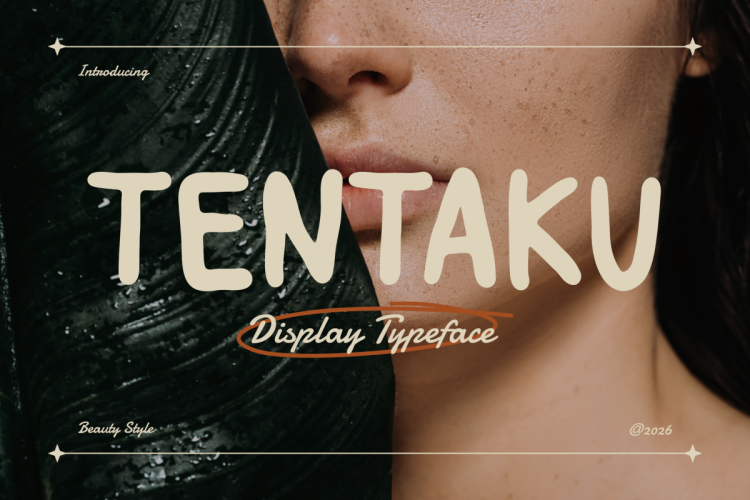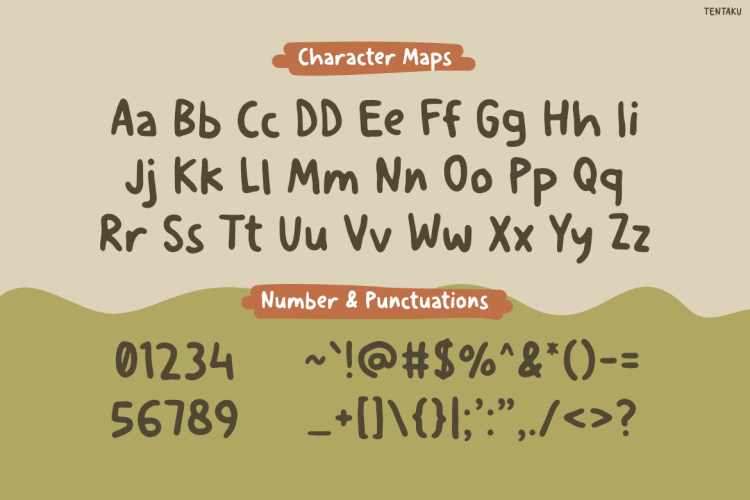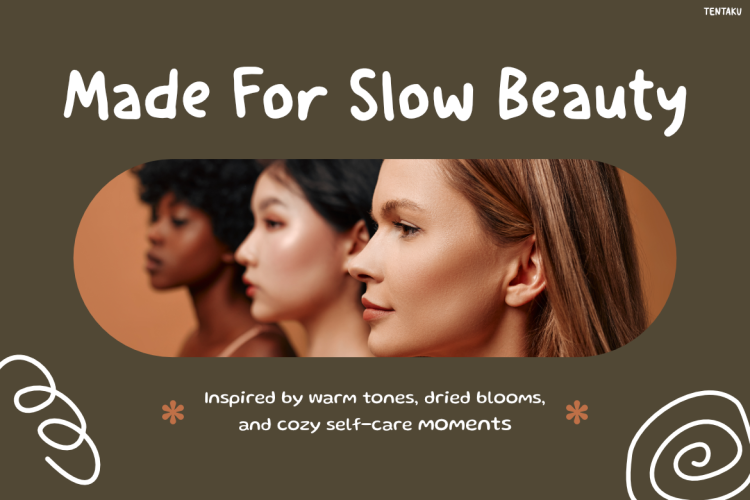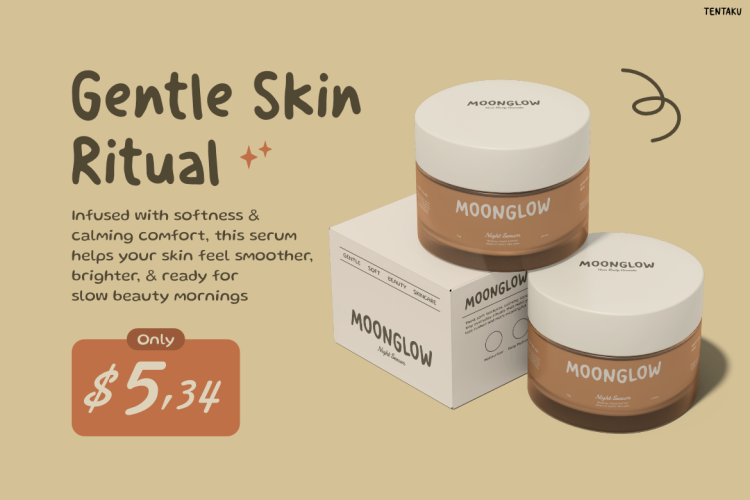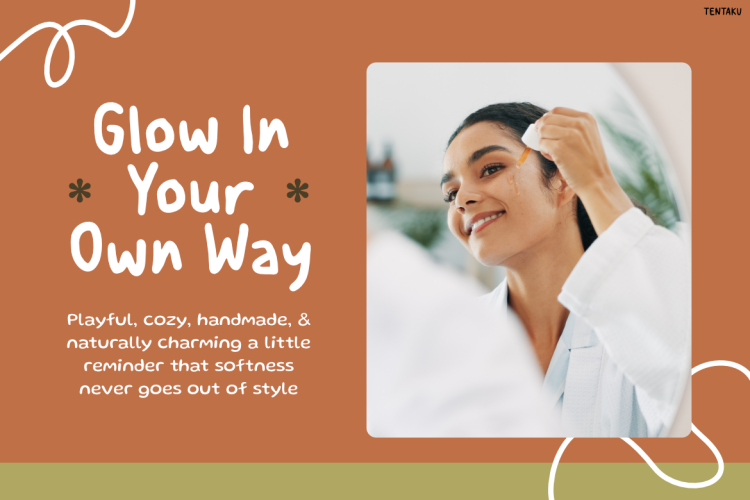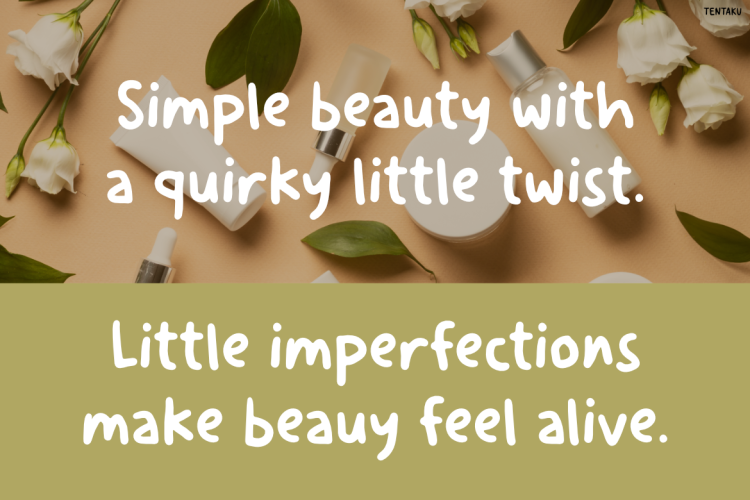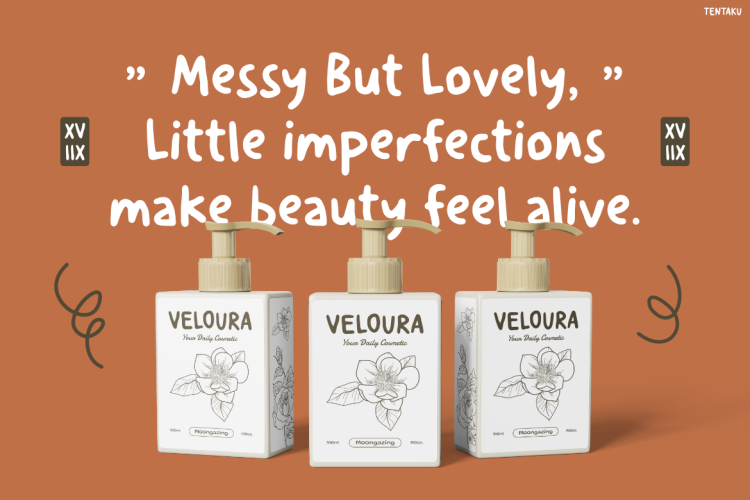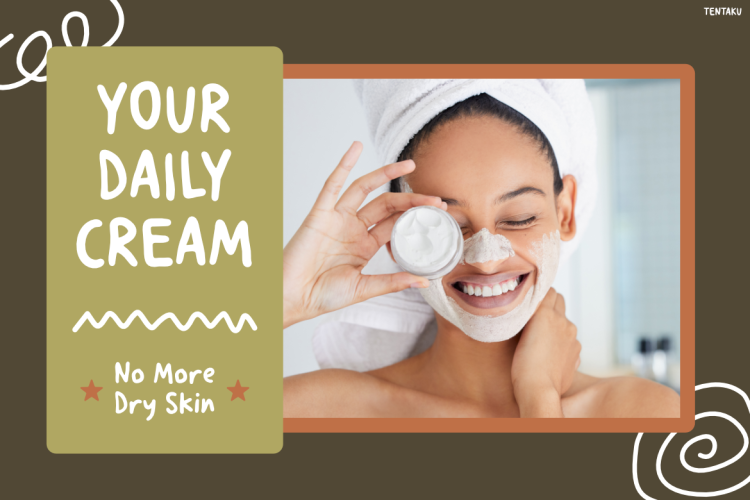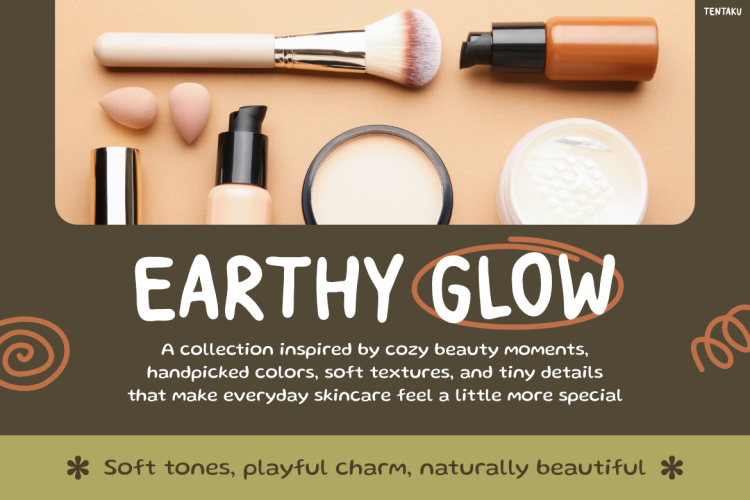
Instagram Font Tentaku โ Organic Handwritten Font for Natural Beauty Brands
Instagram Font Tentaku brings a warm handwritten style with organic strokes, natural imperfections, and a beautifully relaxed character. Furthermore, the font captures the essence of handcrafted elegance, making every design feel genuine and approachable. Because of its soft brush-inspired letterforms and earthy aesthetic, Tentaku creates a calming visual experience that feels both modern and personal. In addition, the font delivers excellent readability while maintaining a unique handmade touch. As a result, branding, packaging, and social media content instantly appear more authentic, premium, and emotionally engaging.
Moreover, Tentaku perfectly balances rustic beauty with contemporary simplicity, so it adapts effortlessly to a wide range of creative projects. Whether you are designing skincare packaging, wellness branding, lifestyle promotions, or Instagram content, this font adds warmth and character to every layout. Therefore, Tentaku is an ideal choice for brands that want to communicate trust, comfort, and natural beauty through typography.
Instagram Font Perfect For Creative Projects
Best Used By:
- Skincare and beauty brands
- Organic product packaging
- Wellness and self-care businesses
- Handmade product creators
- Lifestyle brands
- Instagram content creators
- Boutique and artisan shops
- Natural cosmetic packaging designers
- Marketing and branding agencies
Additionally, Tentaku works beautifully across both digital and print applications because of its versatile handwritten style. Consequently, your designs can feel more organic, inviting, and memorable.
Create Beauty That Feels Real